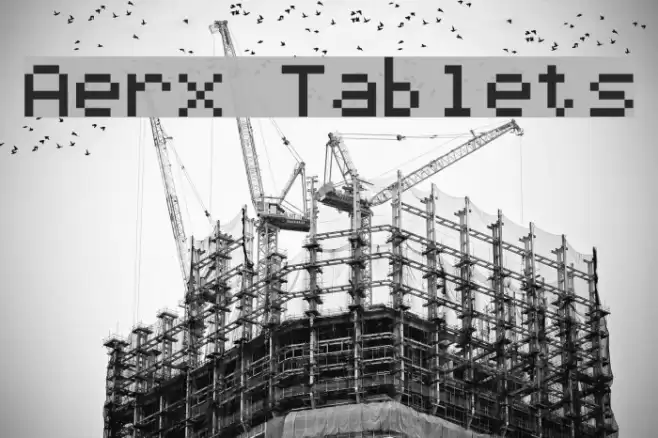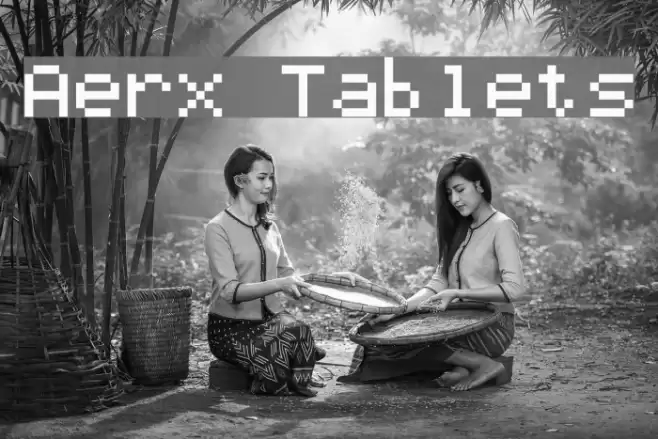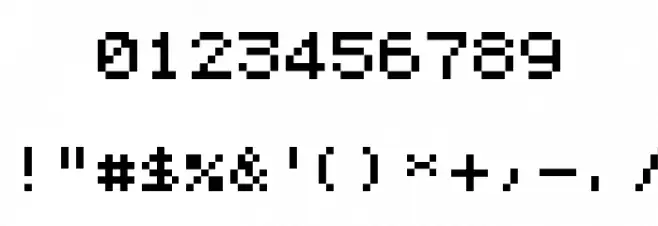
Aerx Tablets Font
Aerx Tablets Description
This font features a pixelated, blocky design reminiscent of early digital displays and video games. Each character is composed of square, uniform pixels, giving it a distinctly retro and digital aesthetic. The uppercase and lowercase letters maintain a consistent height, with minimal differentiation between them, enhancing the font's monospaced appearance. Numbers and special characters follow the same pixelated style, ensuring uniformity across all glyphs. The font's simplicity and clarity make it highly legible, even at smaller sizes, while its nostalgic design evokes a sense of vintage computing.
A pixelated, retro-style font with a blocky, digital appearance from Uncategorized fonts.
- Proposed Projects: Ideal for retro video game designs, digital art projects, tech-themed posters, and any creative work that seeks to evoke a sense of nostalgia for early computing.
- Overall Style: Vintage
- Use Case: Logos, Headlines, Digital Art